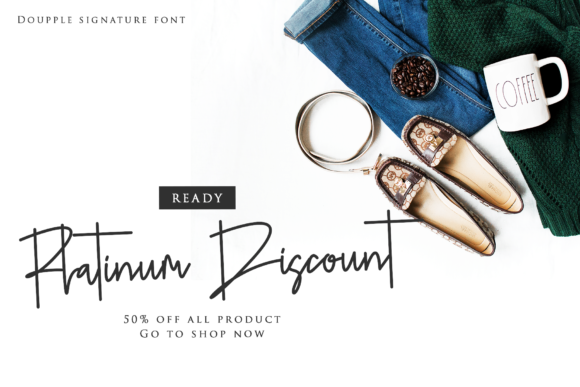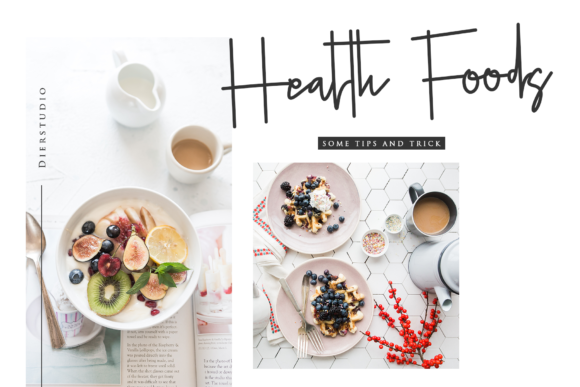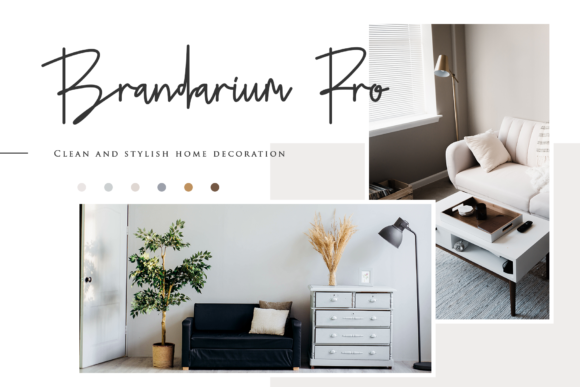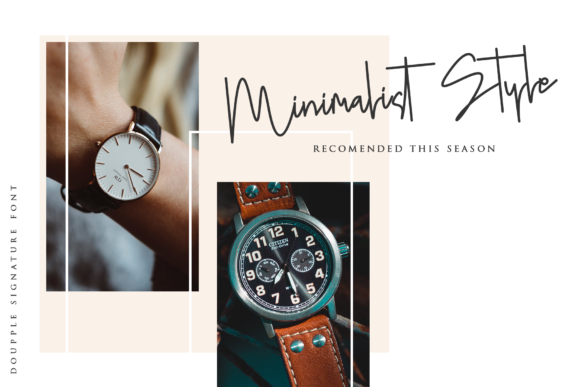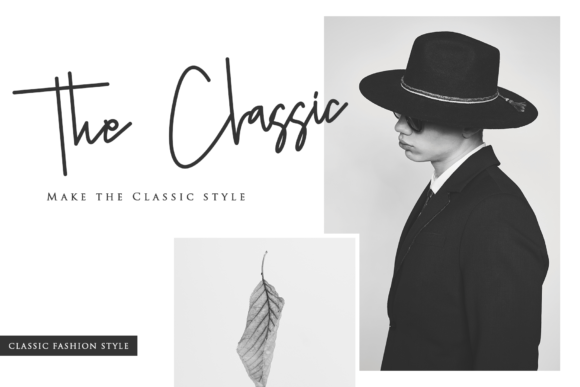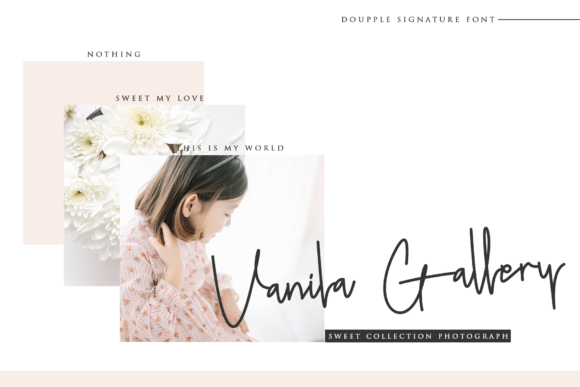
Unleash the Elegance of Handwritten Design
Have you ever been stuck on a design project, struggling to find the perfect font to convey the message and evoke the desired emotion? I know I have. That’s when I stumbled upon the Doupple Font – an exquisite signature font that adds an upscale and chic touch to any design.
The Doupple Font is designed to replicate the authentic feel of handwritten letters, making it a perfect fit for designers who want to create a personal and emotive connection with their audience. With its elegant and sophisticated style, this font is a valuable addition to any designer’s toolkit, allowing them to elevate their designs and leave a lasting impression.
Whether you’re a seasoned pro or a budding designer, the Doupple Font is sure to inspire your creativity and help you achieve your design goals.
Doupple Font Key Features
- Unique Character Set: Doupple Font features a unique set of characters, including a wide range of punctuation marks, ligatures, and swashes, adding an extra layer of expressiveness to your typography.
Doupple Font Review
Overall, I think Doupple Font is a decent addition to any design project. It works well in ✨ **bold and italic styles**, adding a unique flair to text. The font’s irregularities make it stand out in a sea of standard sans-serif fonts. I appreciate how it’s designed to mimic handwritten text, which can add a touch of personality to digital content.
- ✨ **Flexibility**: Doupple Font is suitable for both digital and print projects, making it a versatile choice.
- ✨ **Legibility**: Despite its unique design, the font remains relatively easy to read, especially in larger font sizes.
However, there are some limitations to consider. Doupple Font may not be the best choice for ✨ **body text** due to its unconventional design, which can be tiring to read in large quantities. Additionally, the font’s irregularities may not be suitable for ✨ **technical or instructional content**, where clarity is paramount.
Overall, Doupple Font is a solid choice for designers looking to add some personality to their projects. While it may not be perfect, it’s a great option for titles, headings, and other decorative text elements.
Doupple Font is ideal for:
- Headings and titles.
- Branding and logos.
- Marketing materials.
Remember to use Doupple Font in moderation to avoid overwhelming your design.